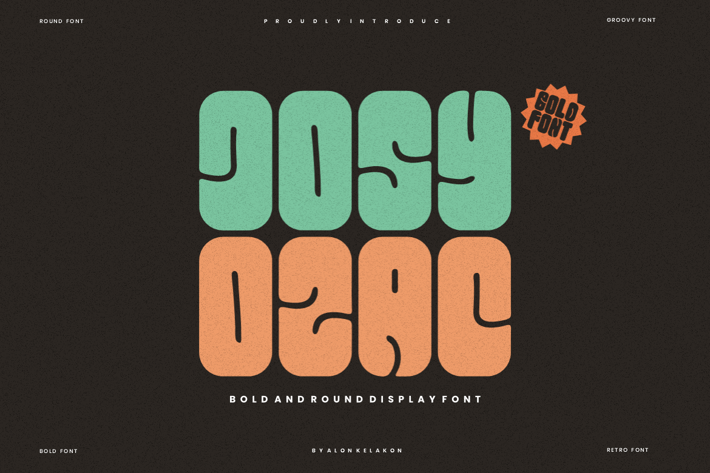
Josyozac - Round Typeface Font
Josyozac Font is unique . Ready to use for your design like labeling, movie sceen, poster, movie title, gigs, album covers, logos, and much more.